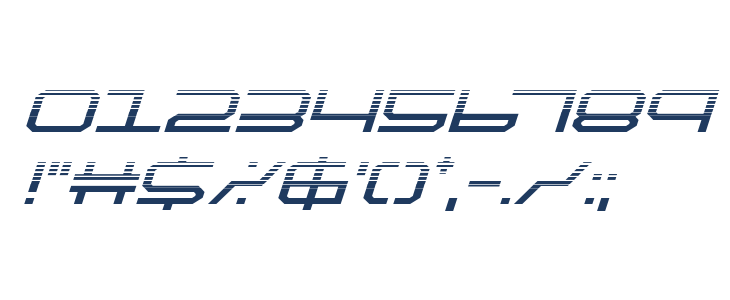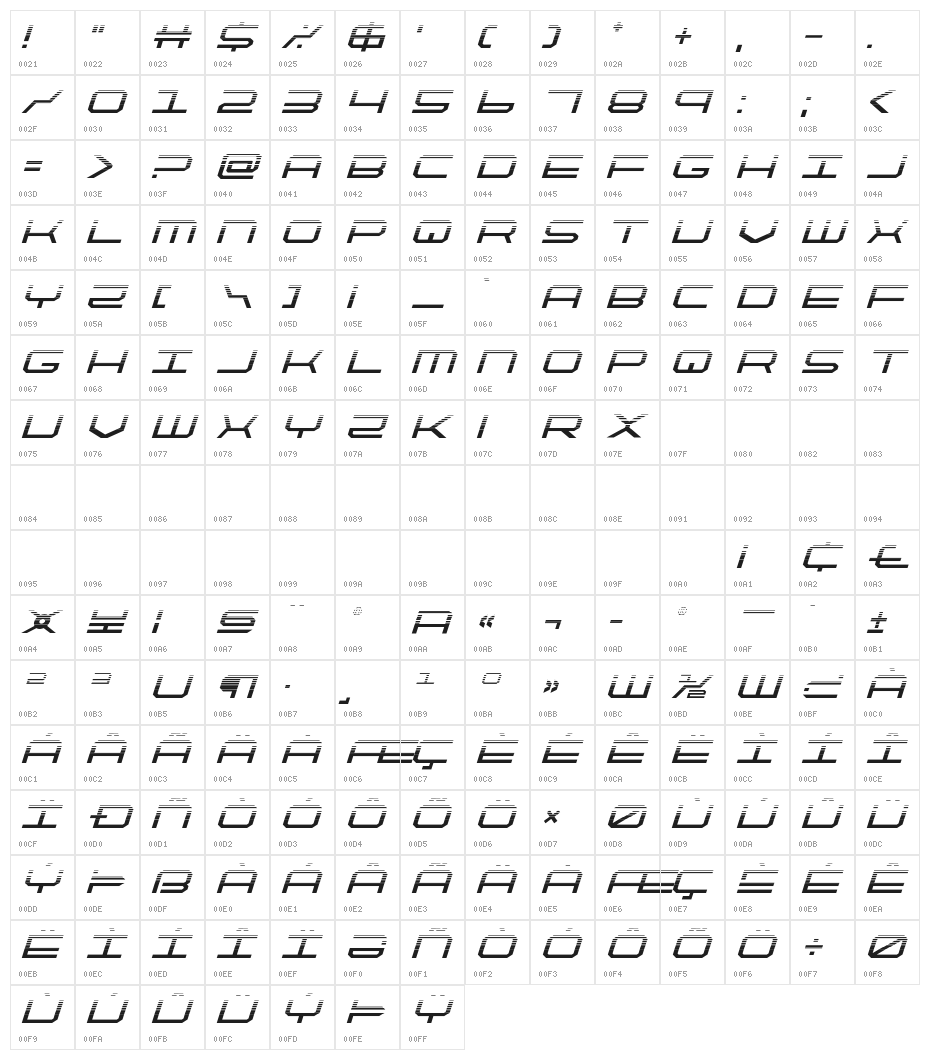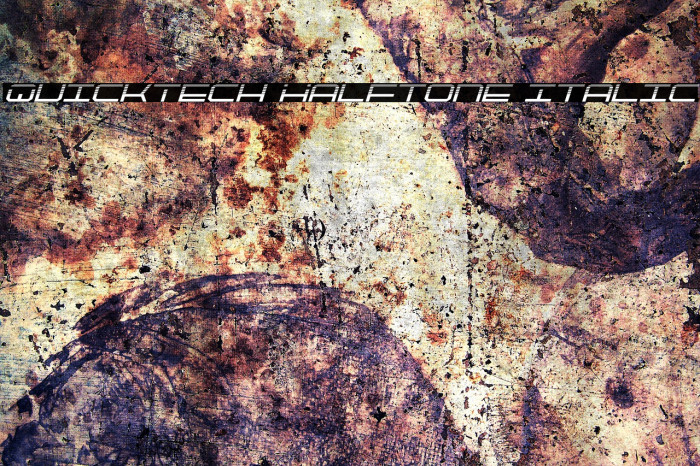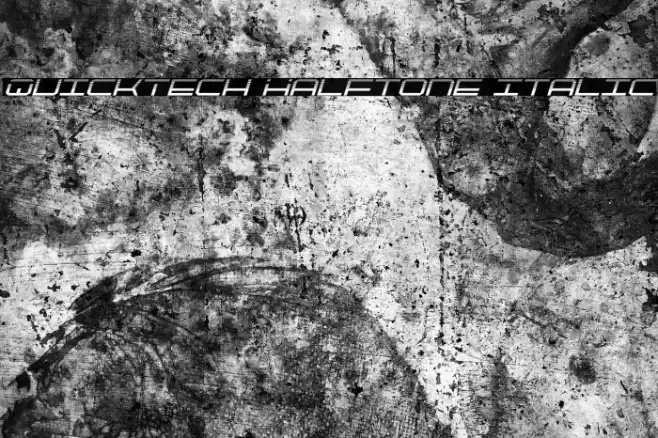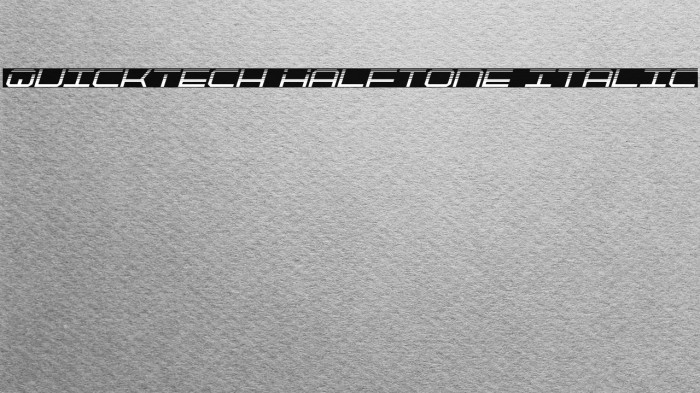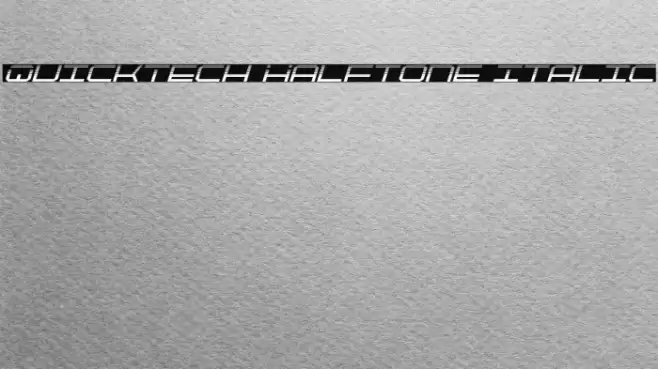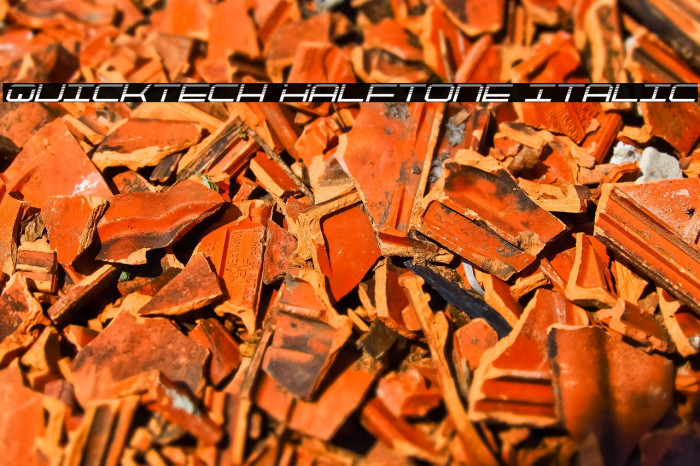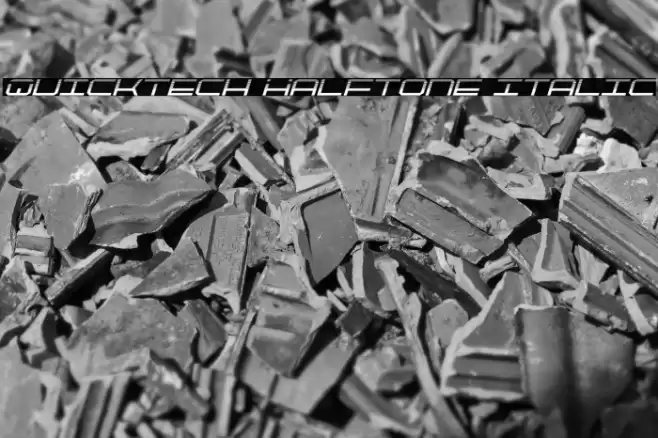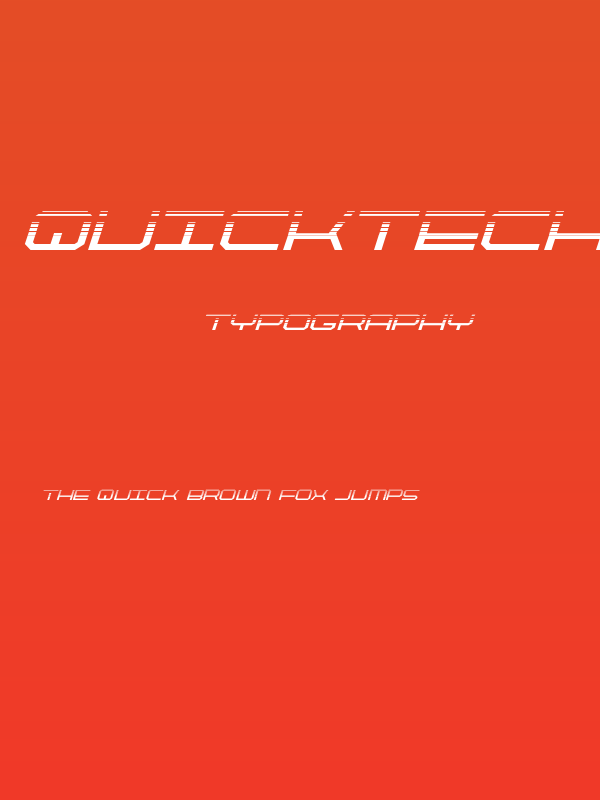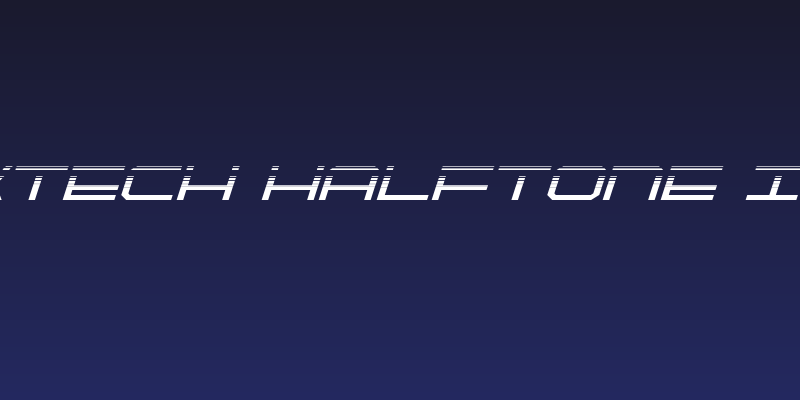
QuickTech Halftone Italic Font
QuickTech Halftone Italic Description
This font features a futuristic and dynamic design, characterized by its halftone effect that gives it a digital and tech-inspired appearance. The characters are italicized, adding a sense of motion and speed. The strokes are composed of segmented lines, creating a unique visual texture that stands out. This style is reminiscent of digital displays or sci-fi themes, making it ideal for projects that require a modern and edgy look. The uppercase and lowercase letters maintain a consistent style, with numerals and special characters following the same design principles.
Proposed ProjectsIdeal for tech-related branding, sci-fi movie posters, video game titles, and digital media.